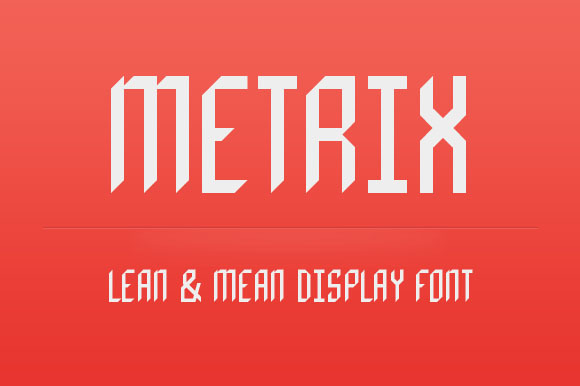
Metrix Display Font
Metrix is a geometric display font with over 50 glyphs. The design was inspired by some old type on the cover of a book I found from the 1950's. This font pairs well with many script fonts.